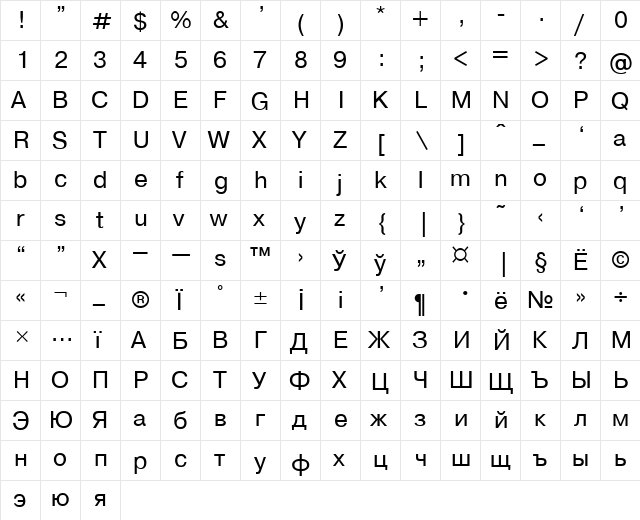
Pragmatica Plain
Design Context for Pragmatica Typeface
Pragmatica takes a measured approach to typography — its balanced proportions and neutral character make it a reliable workhorse for both digital and print work.